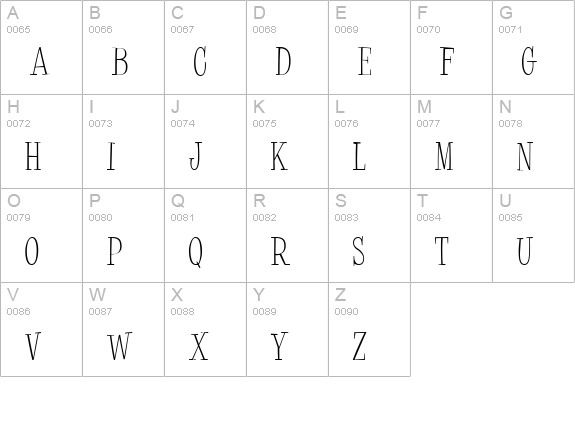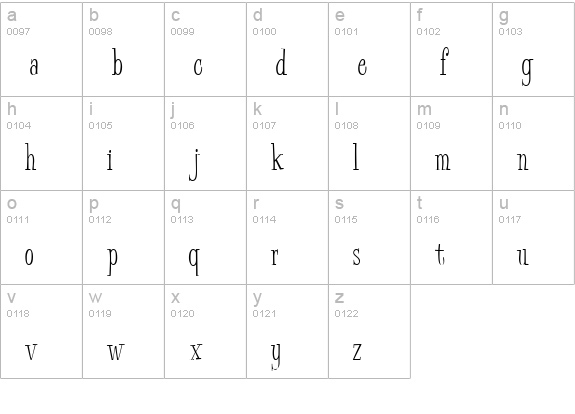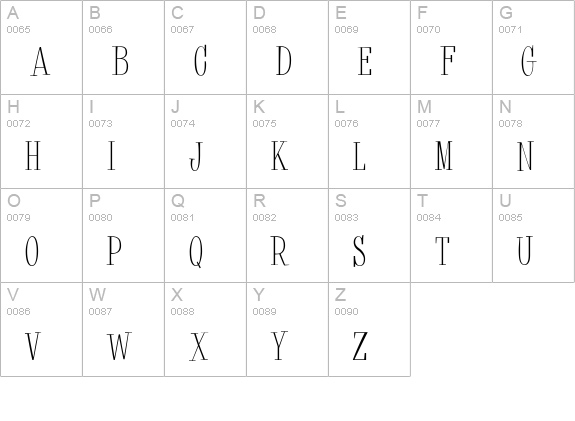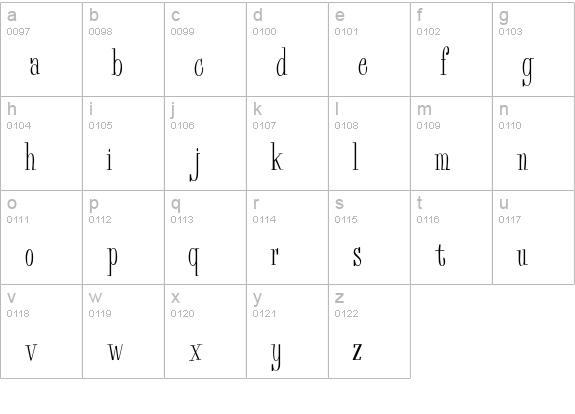
Bud Easy Normal is the standard, neutral variant in the Bud typeface family \xE2\x80\x94 well suited to general body text, paragraphs, and standard typographic work.
Introducing Bud Easy Normal font, a versatile and stylish typeface that exudes simplicity and modernity. This font is perfect for a wide range of design projects, from branding to editorial design, thanks to its clean lines and balanced proportions. Bud Easy Normal font is a free resource that allows designers to add a touch of sophistication to their work without breaking the bank. Whether you're creating a sleek logo or crafting a minimalist poster, this font will elevate your design with its sleek and professional look. You can freely download Bud Easy Normal font at FontsMarket.com and start incorporating it into your projects today. Don't miss out on this fantastic opportunity to enhance your design work with a high-quality font that won't cost you a penny.